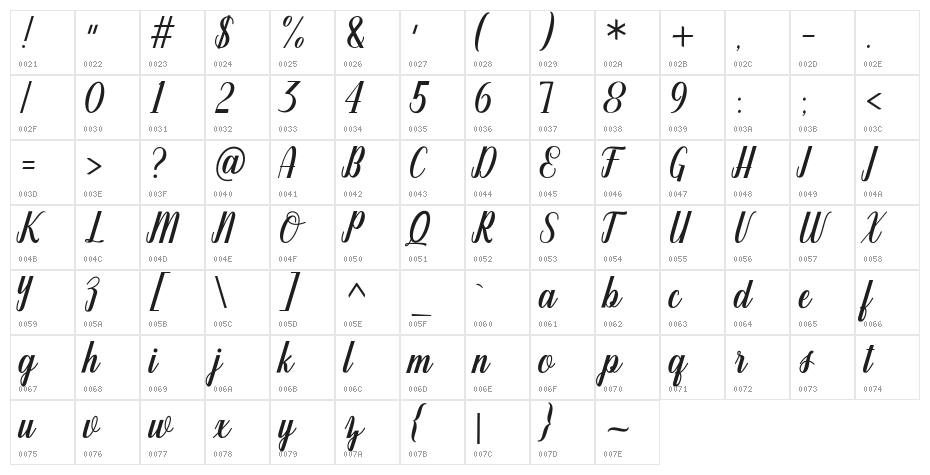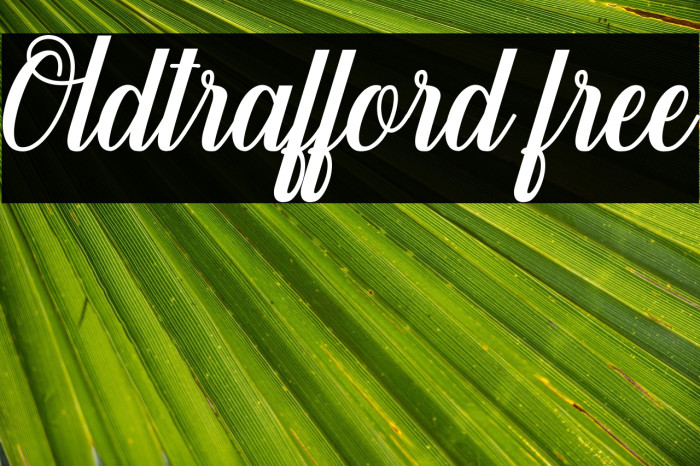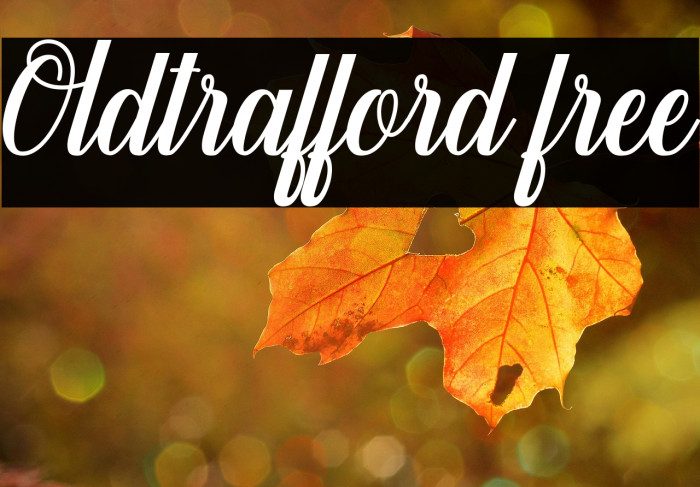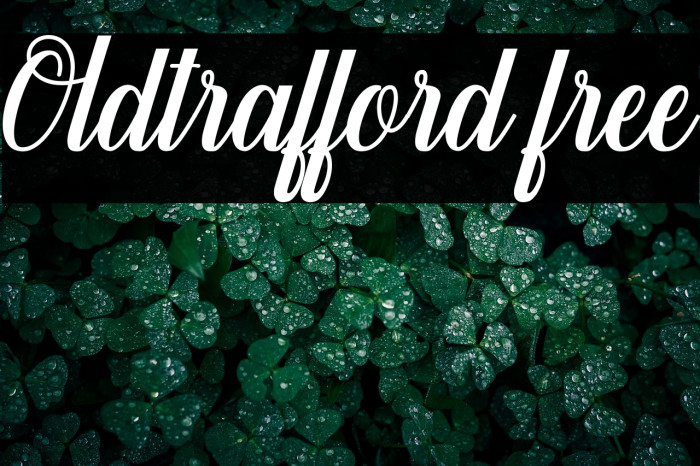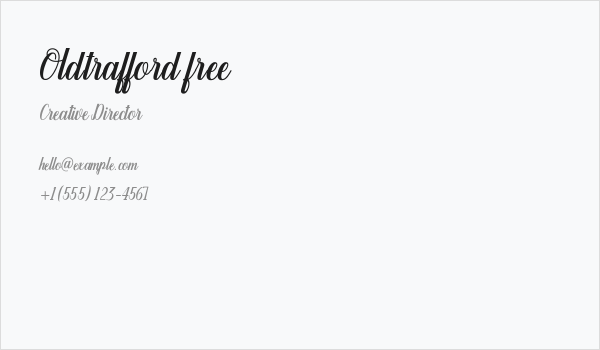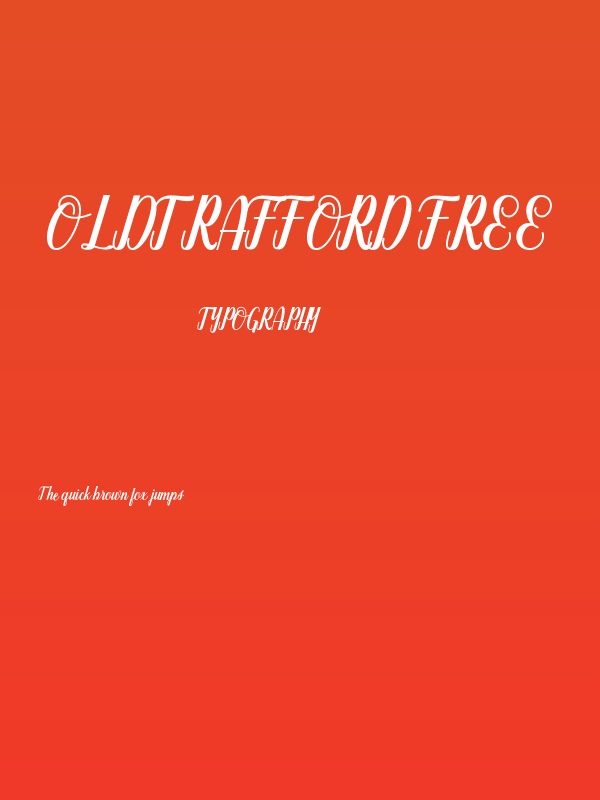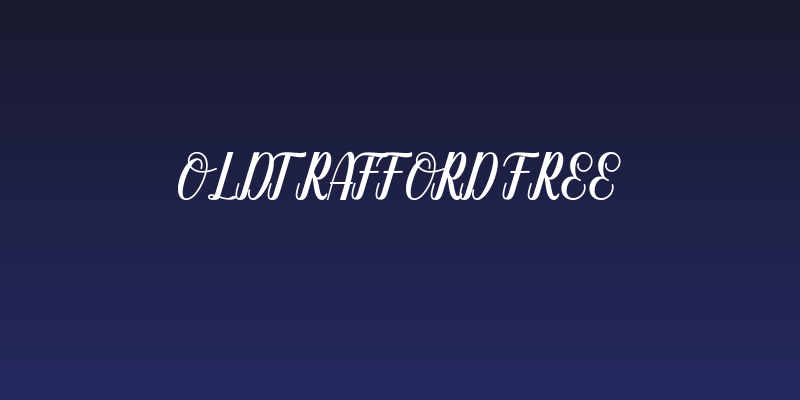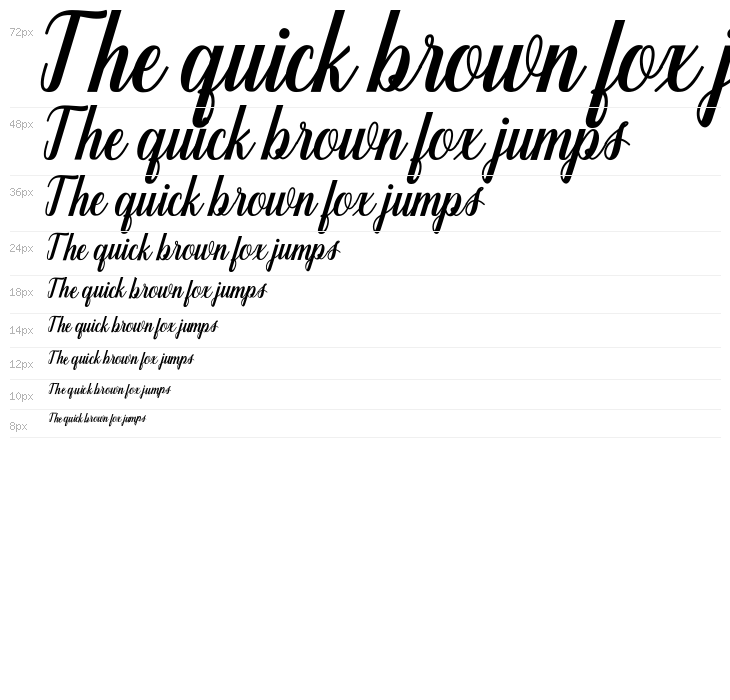
Oldtrafford free Font
Oldtrafford free Description
This elegant script font features a flowing, cursive style with high contrast between thick and thin strokes. The uppercase letters are tall and graceful, often with extended swashes that add a touch of sophistication. Lowercase letters are smoothly connected, enhancing the fluidity of the text. The numerals maintain the same elegant style, ensuring consistency throughout. Special characters are designed with the same attention to detail, making this font versatile for various uses. Its overall appearance is both classic and decorative, suitable for projects that require a touch of elegance and flair.
| Overall Style | Classic, Decorative |
| Proposed Projects | Ideal for wedding invitations, elegant branding, greeting cards, and decorative headlines. |